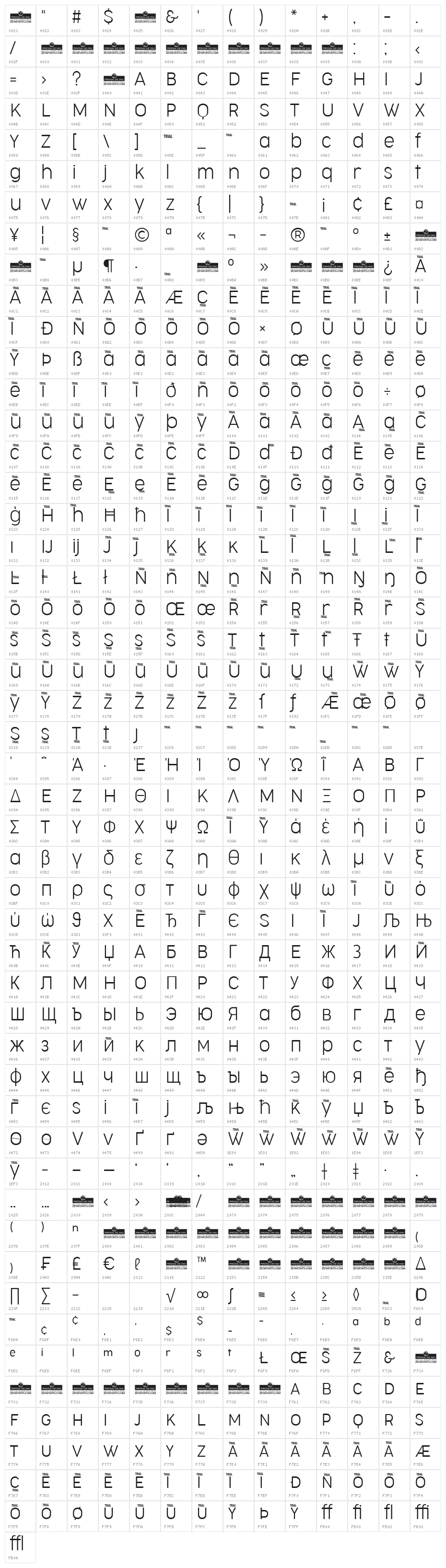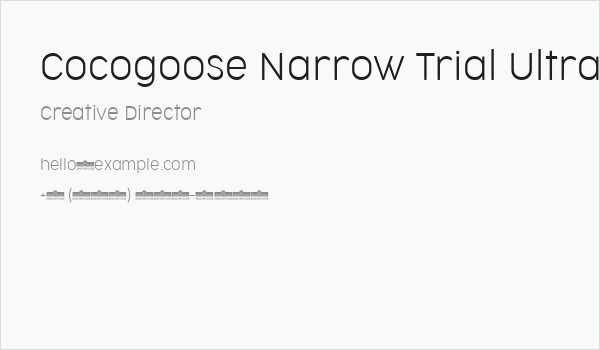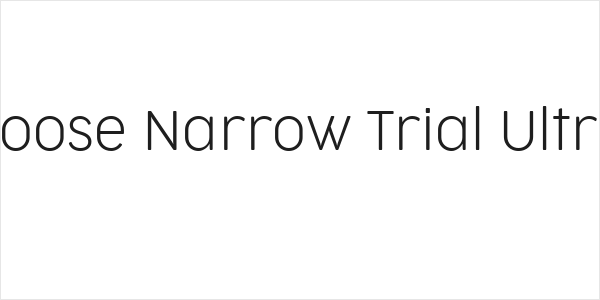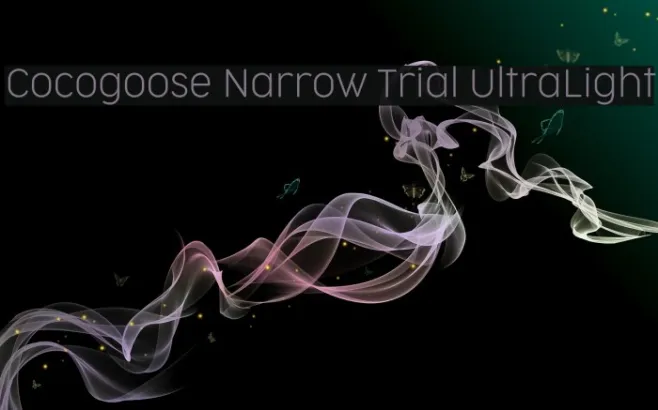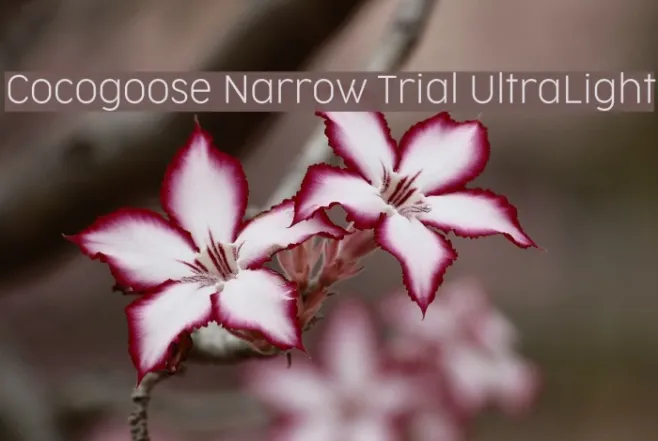
Cocogoose Narrow Trial UltraLight Font
Cocogoose Narrow Trial UltraLight Description
This font exhibits a sleek and modern design with a narrow structure, characterized by its ultra-light weight. The clean lines and minimalistic style make it highly legible, even at smaller sizes. The uppercase and lowercase letters maintain a consistent height, contributing to a uniform appearance. The numerals and special characters are designed with the same attention to detail, ensuring harmony across all elements. The overall aesthetic is contemporary, making it suitable for a variety of digital and print applications.
| Proposed Projects | Ideal for modern branding projects, minimalist website designs, and contemporary editorial layouts. |